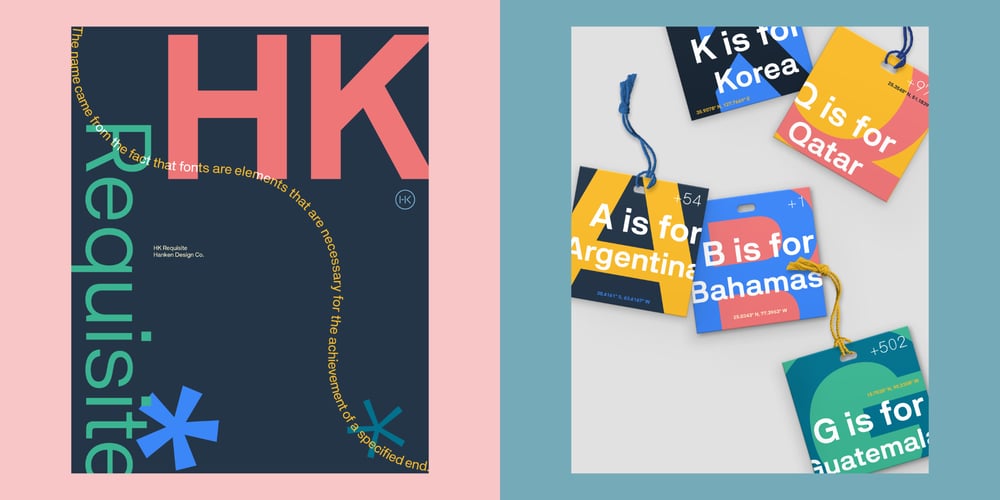
HK Requisite
HK Requisite font
HK Requisite Font Family was designed by Alfredo Marco Pradil and published by Hanken Design Co.. HK Requisite contains 9 styles and family package options. HK Requisite™ is a sans serif typeface inspired by the compactness of Neue Haas Grotesk and the strong character of Akzidenz Grotesk. The name came from the fact that fonts are elements that are necessary for the achievement of a specified end.